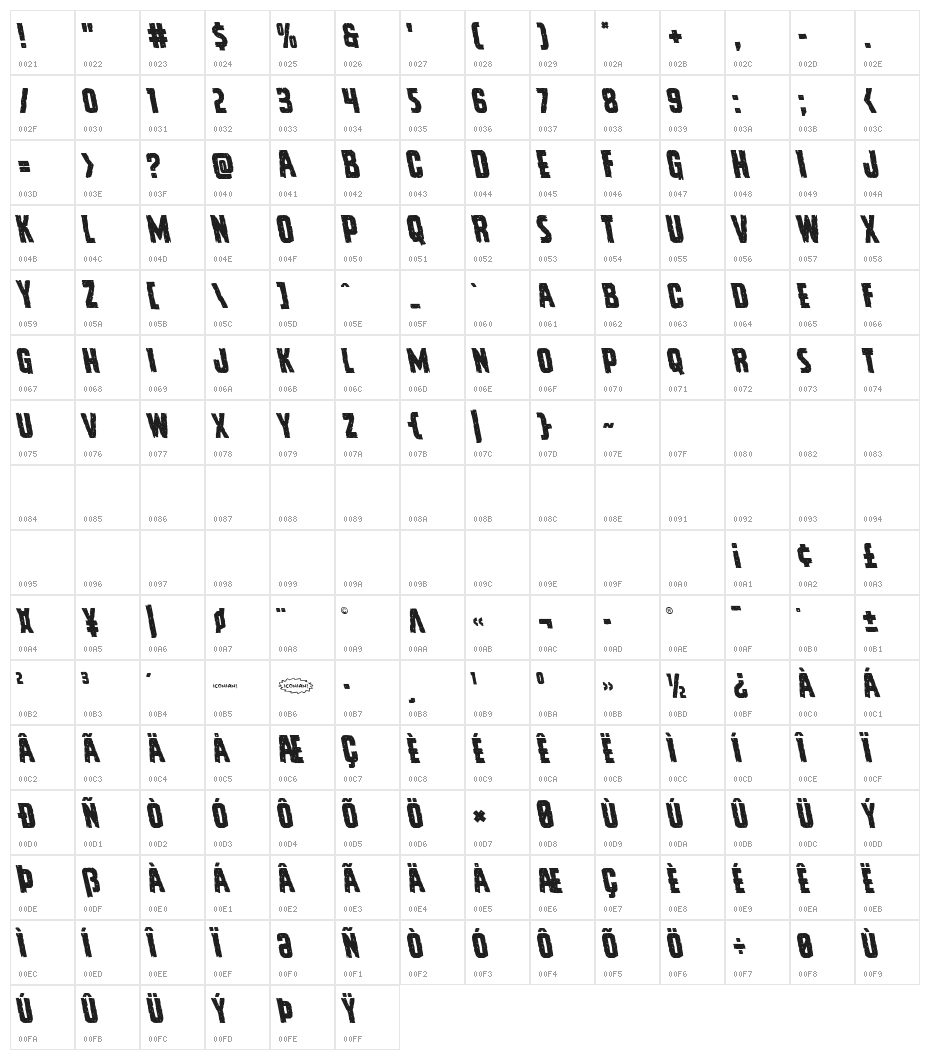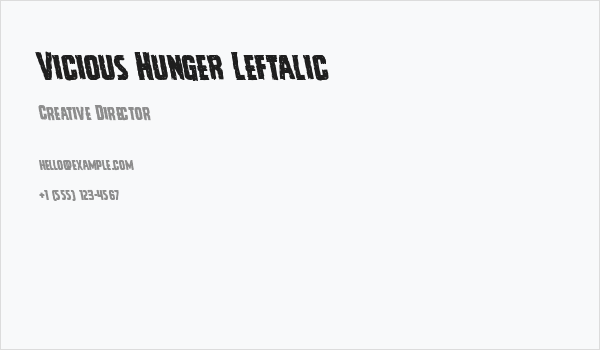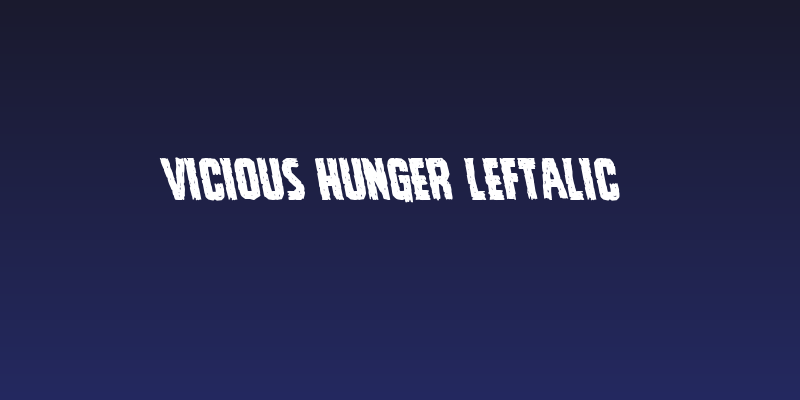
Vicious Hunger Leftalic Font
Vicious Hunger Leftalic Description
This font features a bold, distressed style with a rough, textured appearance that gives it a rugged and edgy look. The characters are slightly slanted, adding a dynamic and energetic feel. The uppercase and lowercase letters maintain a consistent design, with jagged edges and an uneven surface that suggest a hand-crafted or grunge aesthetic. The numbers and special characters follow the same design principles, ensuring uniformity across all glyphs. This font is ideal for projects that require a bold statement or a rebellious, unconventional vibe.
| Proposed Projects | Ideal for album covers, posters, streetwear branding, or any project needing a bold, edgy statement. |